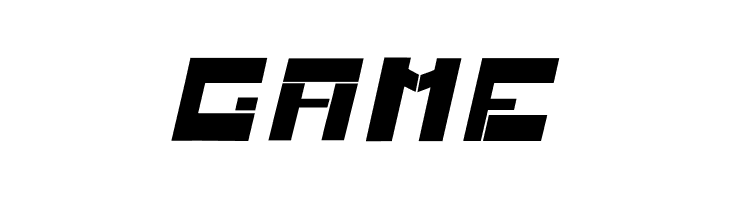
A bold, angular font with a futuristic and geometric design.
A bold, decorative font with a unique outline effect and medium contrast.
A clean, single-line font with a modern and minimalistic design.
A bold, playful font with rounded edges and a slight tilt.
A bold, 3D font with a dotted texture and shadow effect.
A playful, hand-drawn font with bold, uneven strokes and a whimsical feel.
A playful, handwritten-style font with bold, irregular strokes.
A casual, handwritten font with a dynamic and flowing style.
A bold, decorative font with playful circular embellishments and vintage flair.
A dynamic, cursive script font with elegant, flowing strokes.